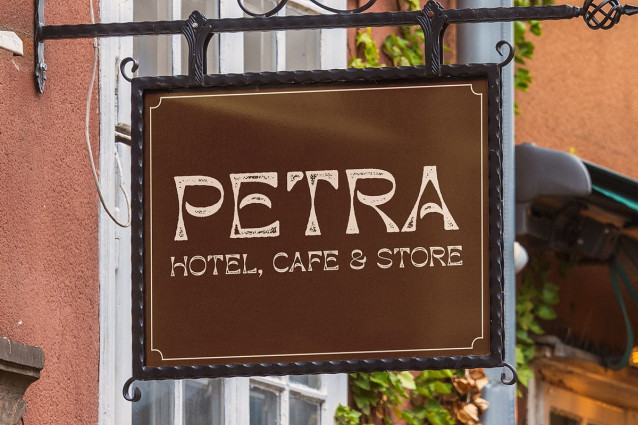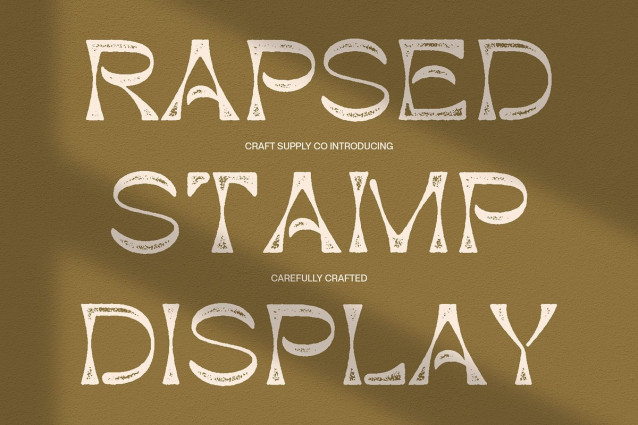
Rapsed Stamp Font
Rapsed Stamp Font is a display font featuring a reverse contrast style—where horizontal strokes are bolder than vertical ones—offering a unique and eye-catching look. This typographic twist breaks from tradition, creating a striking visual rhythm that stands out in any design context.
Funky Retro Energy with Bold Personality Inspired by retro and funky aesthetics, the font carries a playful, expressive, and character-rich tone. Its bold shapes and unexpected proportions exude vibrant energy, perfect for injecting personality into modern and nostalgic design themes alike.
Stamp Texture for Handmade Vintage Vibe Whether you’re designing a music festival poster, a vintage-inspired product label, streetwear branding, or art-driven packaging, Rapsed Stamp brings a distinctive voice. It’s particularly suited for visuals that require a balance of rebellious flair and authentic charm. For any creative project that demands to be seen, remembered, and felt, Rapsed Stamp delivers with confidence.
Perfect for Bold, Creative Projects Ideal for posters, labels, packaging, branding, or any creative design that seeks to be bold, memorable, and full of character, Rapsed Stamp delivers a visual punch with retro charm. Whether you’re going for an old-school look or an experimental display, this font makes your message impossible to ignore.